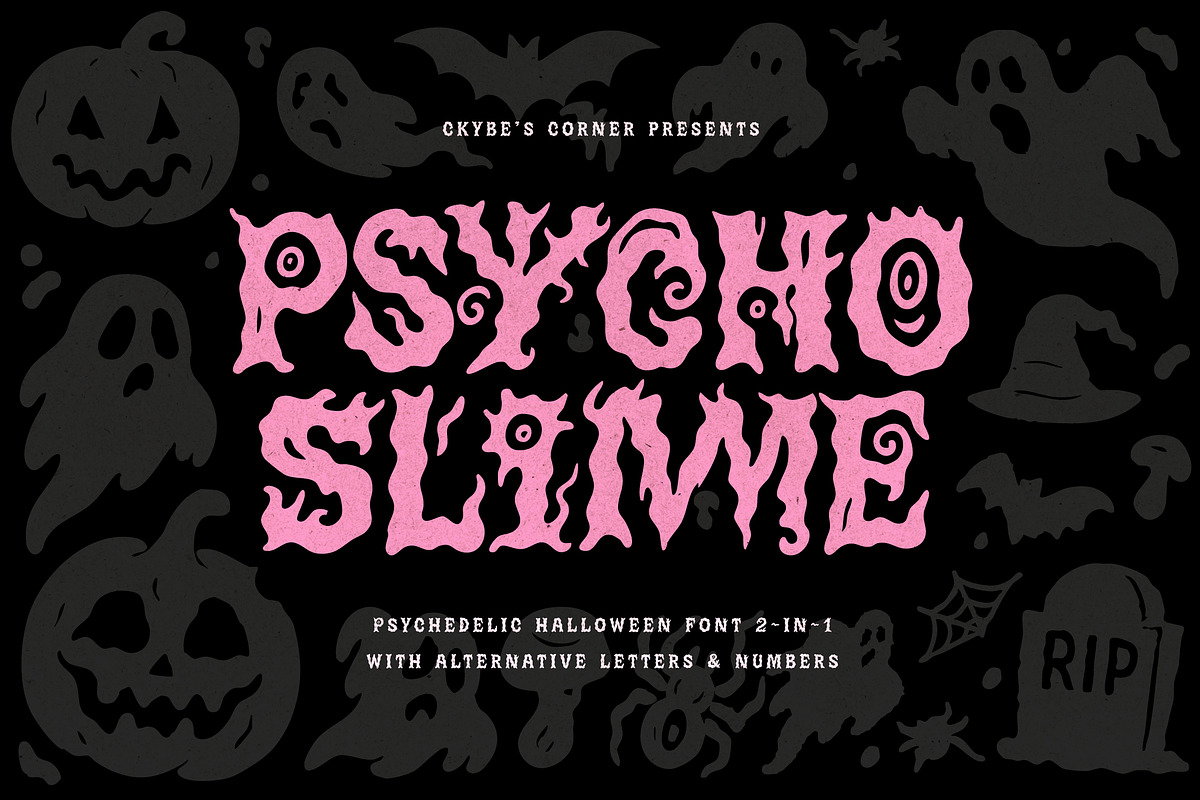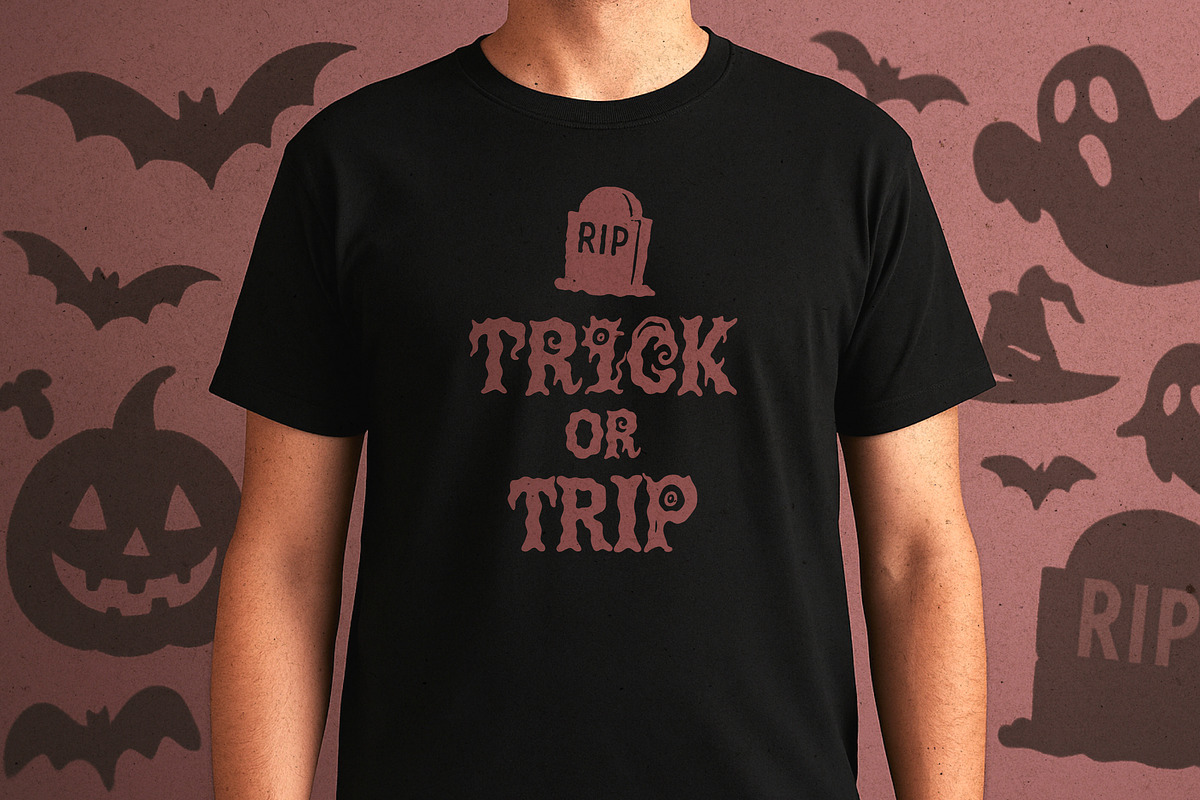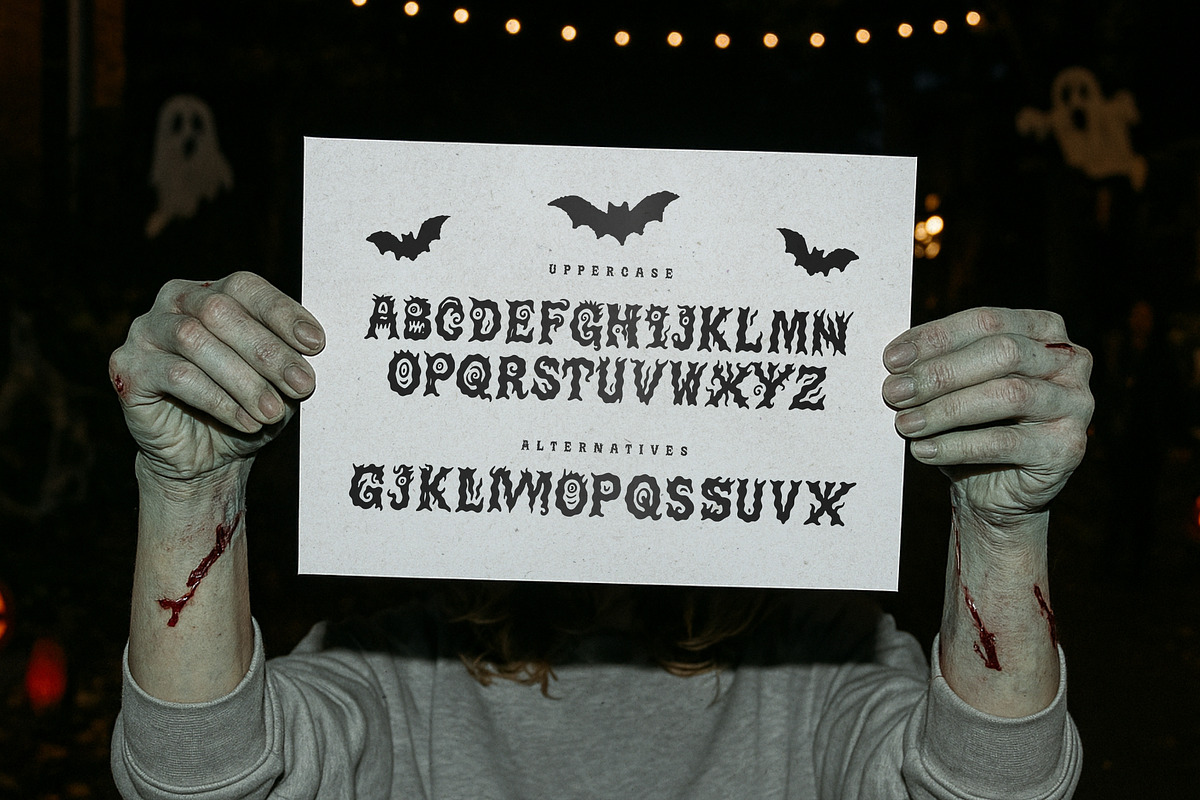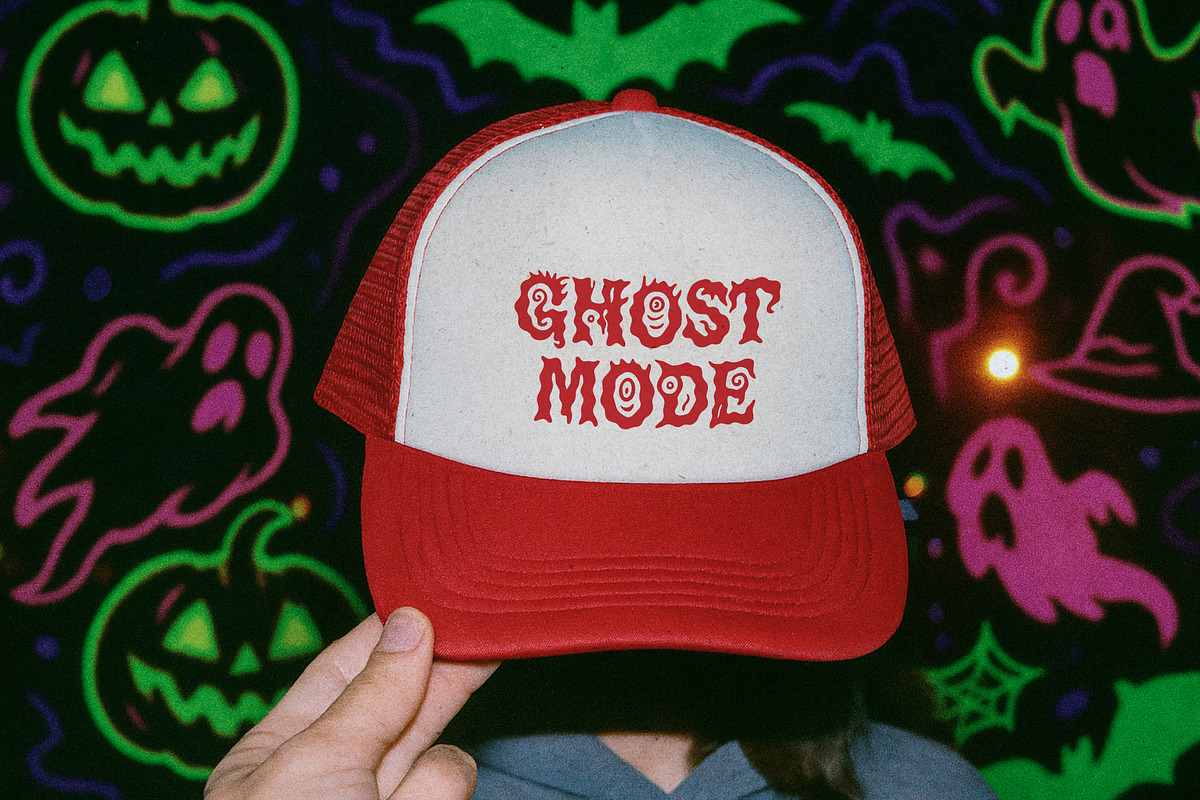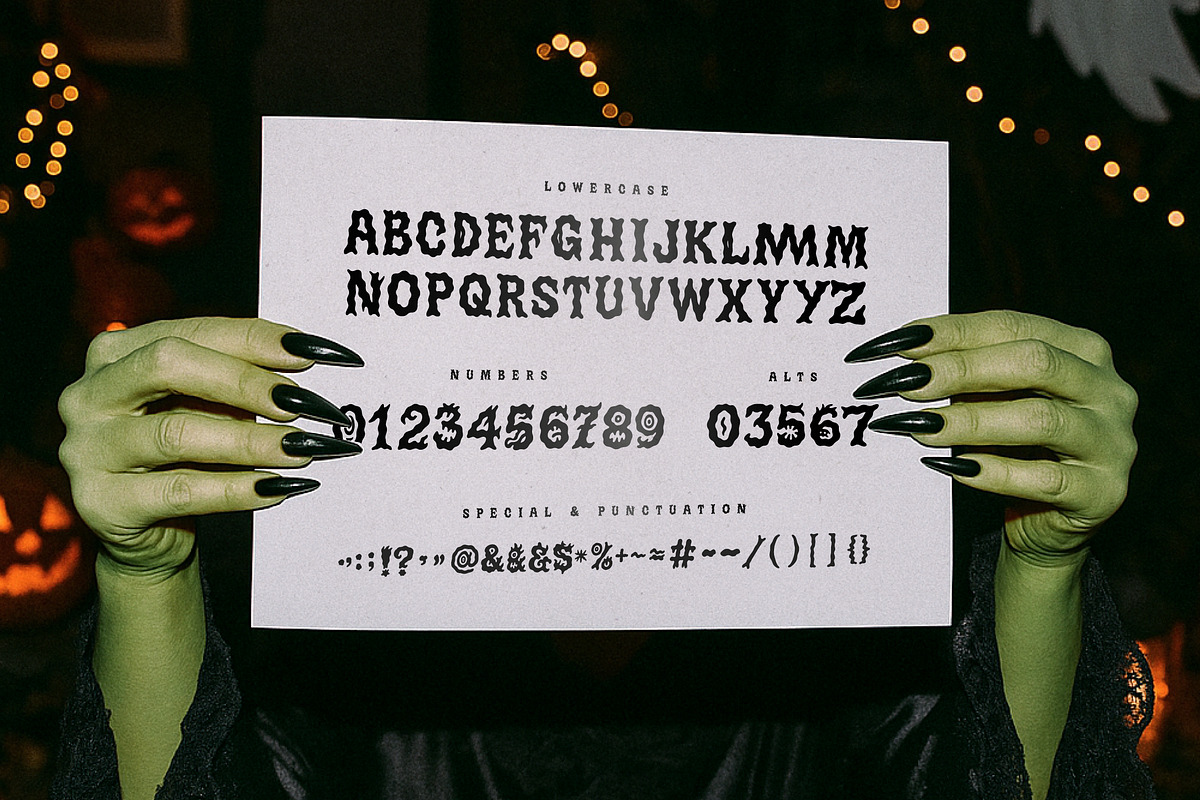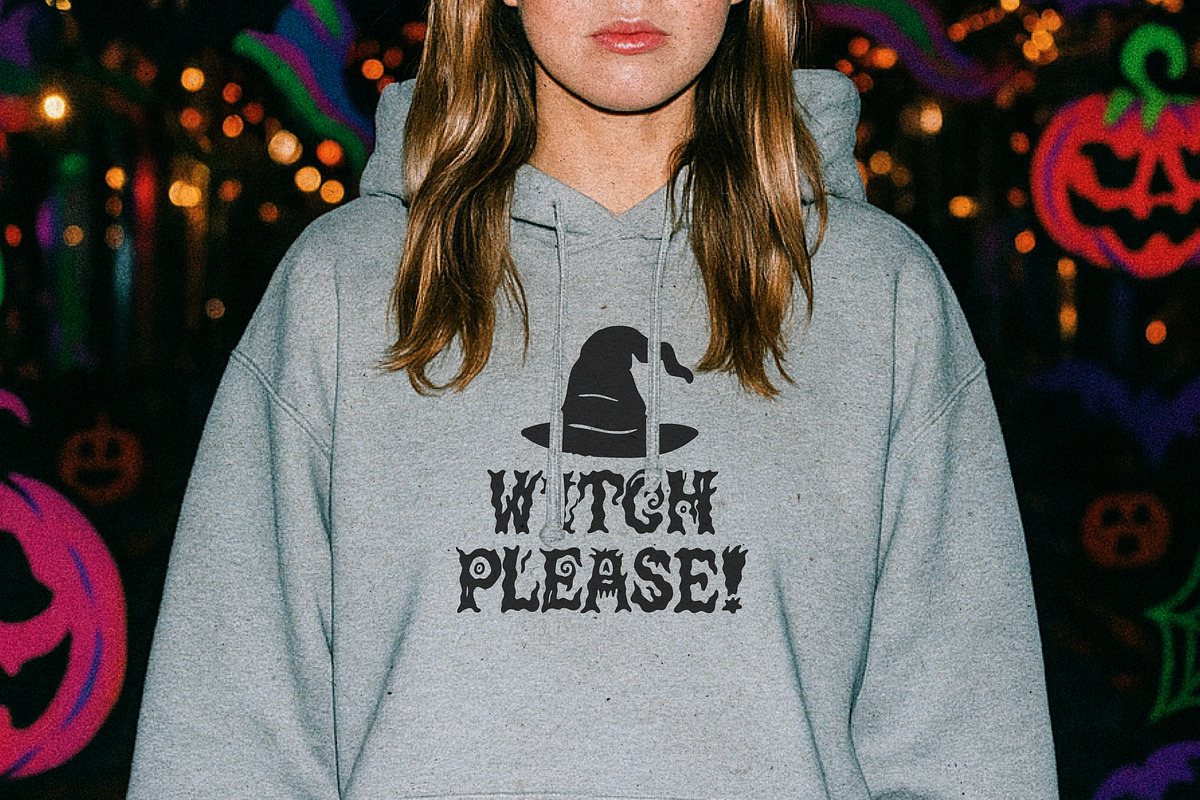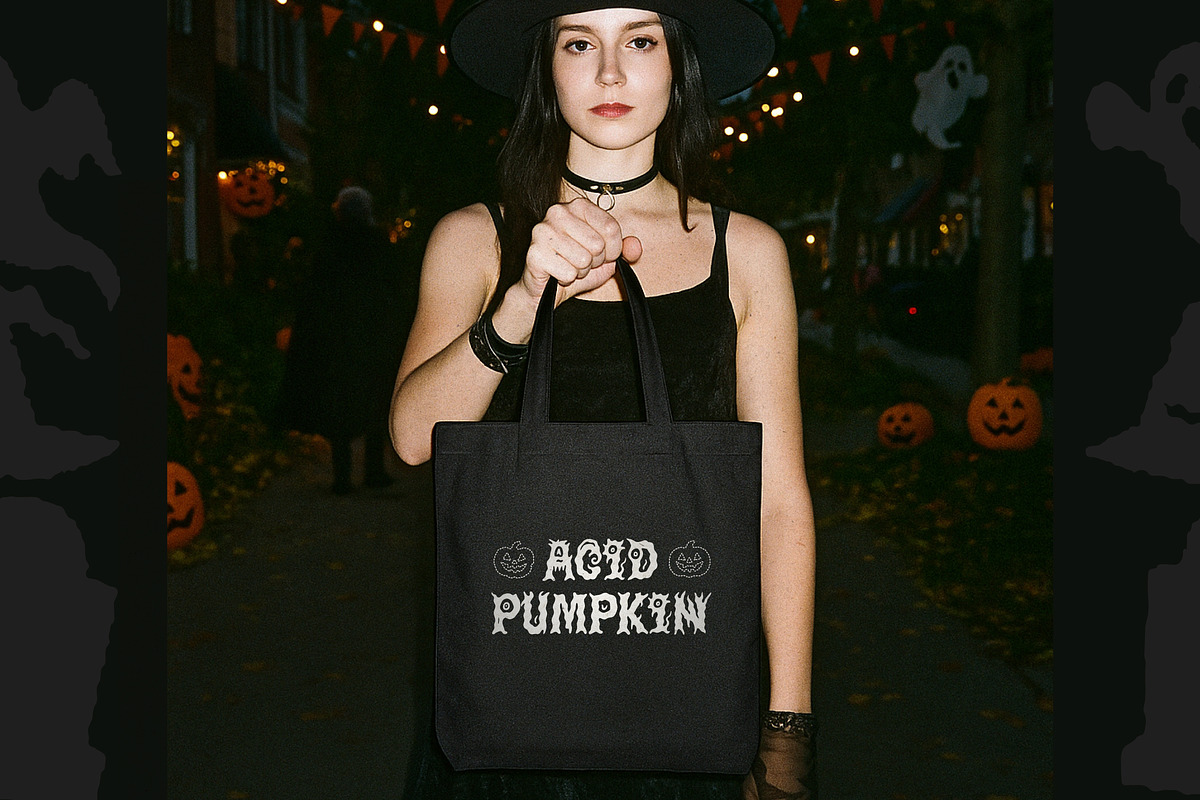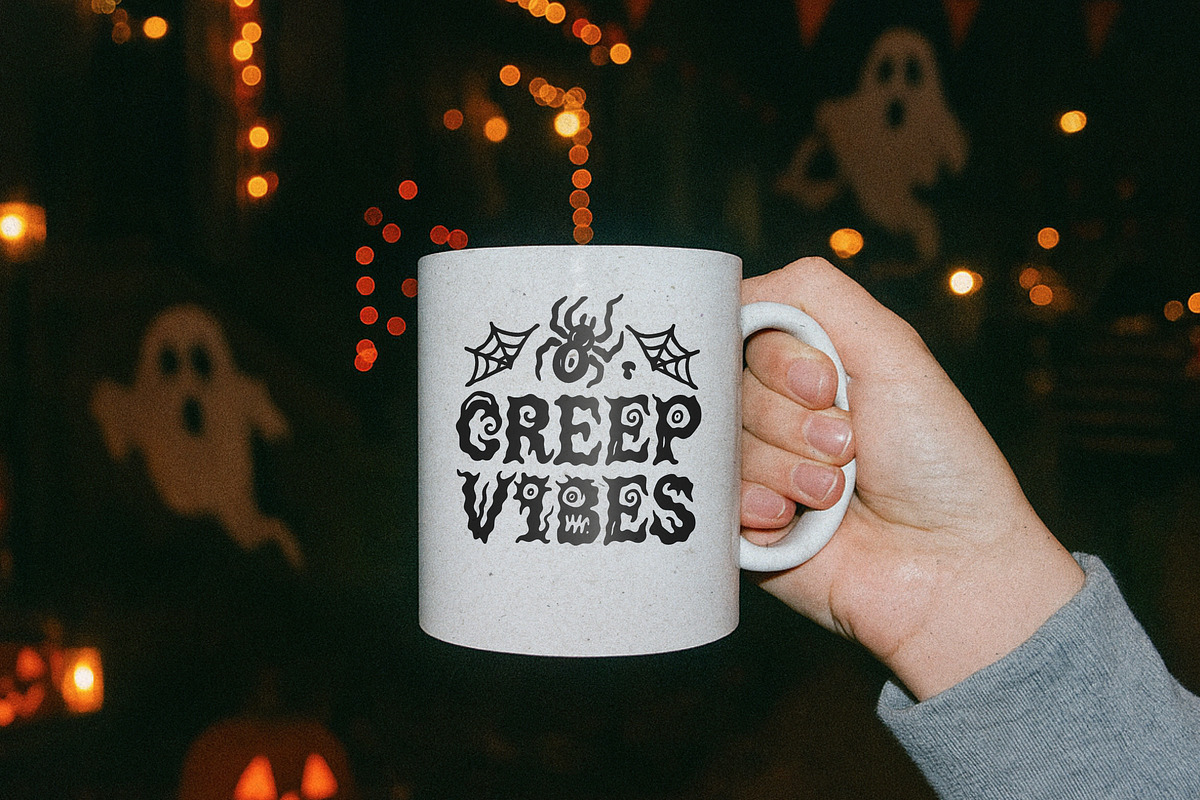
Psycho Slime | Halloween Font
Psycho Slime – Psychedelic Halloween Font
Get ready to melt your words into madness. Psycho Slime is a hand-crafted display typeface that drips with chaotic energy, perfect for Halloween, horror posters, underground zines, rave flyers, streetwear, and merch.
This font was born from a blend of psychedelia, horror pulp, and slime-soaked nightmares. Each letter feels alive — bending, twisting, and mutating with creepy eyeballs, melting edges, and ghostly vibes.
- Full uppercase alphabet A–Z
- Full additional alphabet A–Z (found it in lowercase)
- Numerals 0–9
- Punctuation & special symbols
- Alternative characters for extra variety
- Perfect for posters, T-shirts, tote bags, stickers, album covers, social media graphics
- Halloween party invitations
- Horror movie titles & trailers
- Psychedelic event flyers
- Spooky branding & packaging
- DIY streetwear designs
- Tattoo & sticker packs
Turn any project into a freaky trip through slime, screams, and psychotic fun.
With Psycho Slime, your designs won’t whisper... they’ll SCREAM.